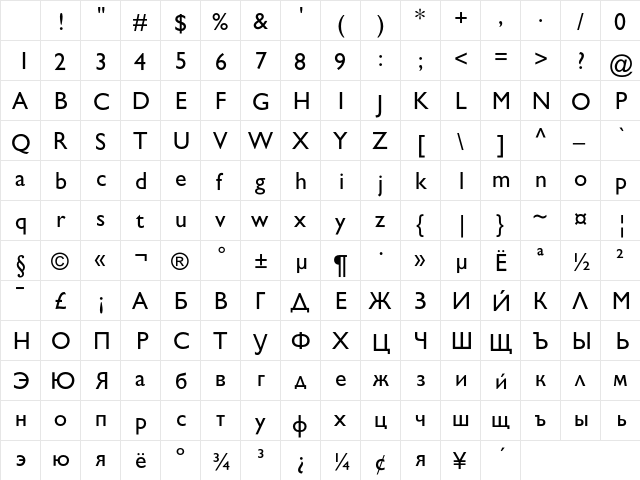
AZGillSansC Regular
Design Context for AZGillSansC
AZGillSansC is a composed and adaptable typeface that performs quietly and consistently across a wide range of design contexts.